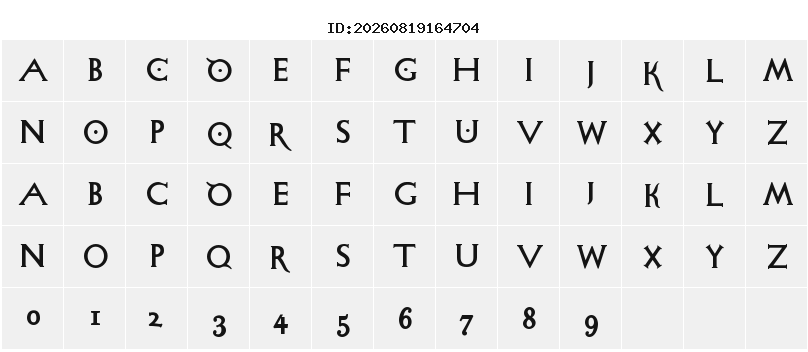
SigismundoDiFanti Preview
• Font Name: SigismundoDiFanti
• Full Font Name: SigismundoDiFanti
About SigismundoDiFanti.ttf
SigismundoDiFanti.ttf is a modern, elegant sans-serif font designed for ultimate readability and visual harmony. Perfect for branding, headlines, web design, and print materials.